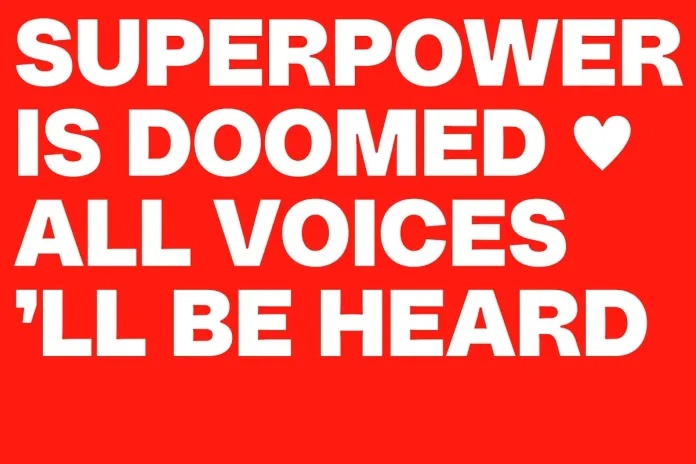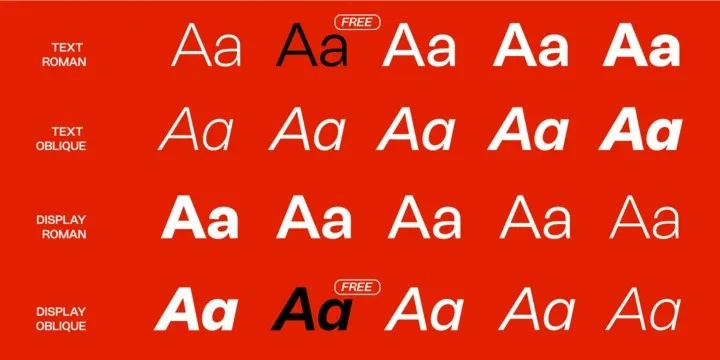
Resist Font Family
Resist is a robust and versatile sans-serif type duo, designed to tackle even the most demanding tasks with ease. Its design is not only stylish but also features an intuitive interface—two key qualities that set it on the path to becoming a legend.